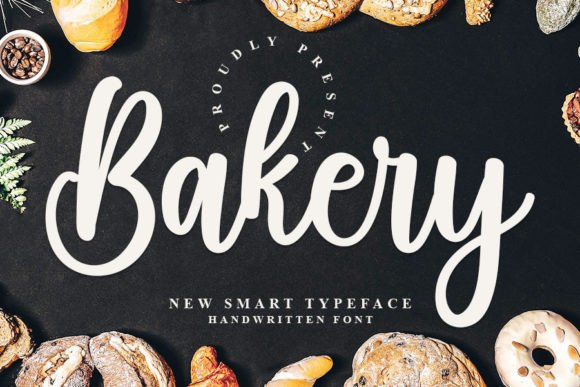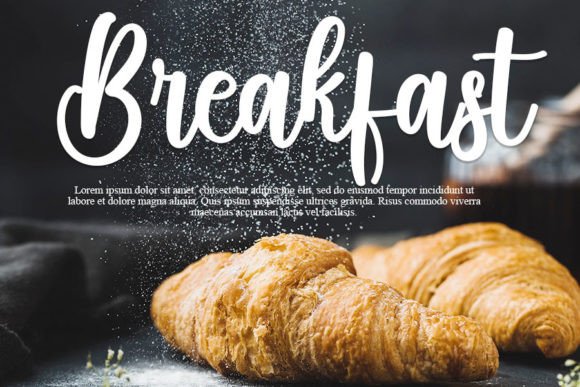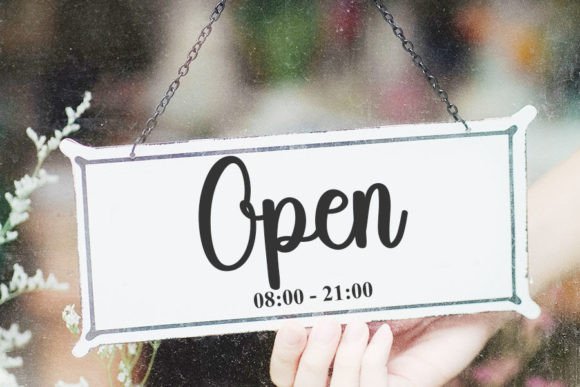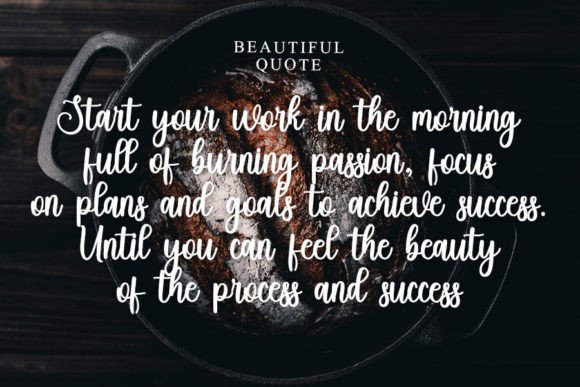
Bakery Font – A Handwritten Font That Elevates Every Design
Bakery Font is a trendy and elegant handwritten font that captures the charm of classic calligraphy with a fresh, modern twist. Whether you’re working on personal or professional projects, this font adds sophistication and warmth to any visual creation.
Crafted for creatives who appreciate timeless style, Bakery delivers a smooth and refined appearance that brings your designs to life. Its natural flow and clean curves make it both beautiful and highly legible.
Why Use This Handwritten Font?
Bakery is not just another handwritten font—it’s a tool that helps your brand, message, or event stand out with class. Its handcrafted look conveys authenticity, while the modern structure ensures versatility across multiple design needs.
This font is ideal for:
🖋️ Brand identity and logos
💌 Wedding invitations and RSVP cards
🛍️ Product packaging and label designs
📲 Social media templates
🖼️ Posters and quote designs
🎁 Gift tags, cards, and stationery
📘 Magazine titles and book covers
From formal branding to playful posts, Bakery adapts beautifully to every tone.
Features That Make Bakery Font Stand Out
This makes Bakery both beginner-friendly and powerful for professionals.
A Must-Have Font for Elegant Visuals
When you need typography that feels personal yet polished, Bakery is your go-to font. Use it to design social media graphics, create luxurious product packaging, or bring a touch of romance to wedding materials. Its flexibility ensures it looks stunning in print and digital formats.